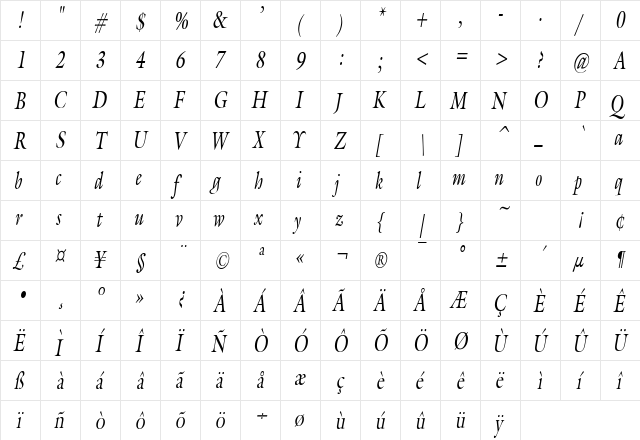
JoulliardCondensed Italic
Design Context for JoulliardCondensed Typeface
JoulliardCondensed takes a measured approach to typography — its balanced proportions and neutral character make it a reliable workhorse for both digital and print work. The slanted form adds forward momentum and visual energy. The condensed width makes it efficient for tight spaces without sacrificing legibility.
Pro Tip: Use JoulliardCondensed for emphasis, pull quotes, and subheadings where its slanted energy can add rhythm to the layout.